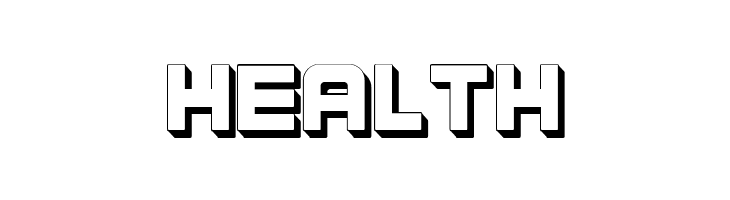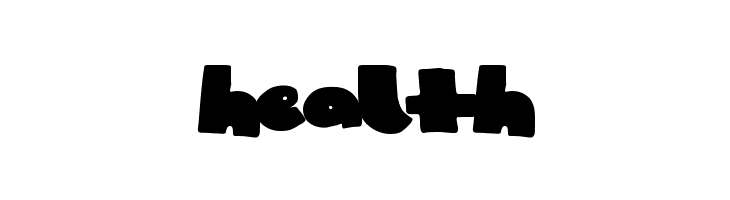
A whimsical, handwritten font with tall, narrow letters and a playful style.
A bold, geometric font with sharp angles and a modern style.
A bold, playful font with a retro pop culture vibe.
A bold, hand-drawn font with a playful and energetic style.
A bold, geometric font with sharp edges and a modern style.
A bold, three-dimensional collegiate-style font with strong outlines and a shadow effect.
A bold, three-dimensional font with a shadow effect and geometric style.
A bold, hand-drawn font with an expressive and playful style.
A collection of iconic silhouettes and symbols from a popular sci-fi universe.
A bold, modern sans-serif font with clean lines and balanced spacing.
A bold, geometric sans-serif font with a modern and minimalistic design.
A bold, iconic font featuring symbols of popular social media and tech brands.
A modern, geometric sans-serif font with uniform width and clean lines.
A playful, eclectic font inspired by popular brands, featuring unique and bold character designs.
Minimalist circular icons of popular social media and web services.
A clean, minimalist font with geometric structure and uniform stroke width.
A modern sans-serif font with clean lines and geometric structure.
A decorative font featuring characters from a popular animated series.
A playful collection of parody logos with bold, humorous designs.